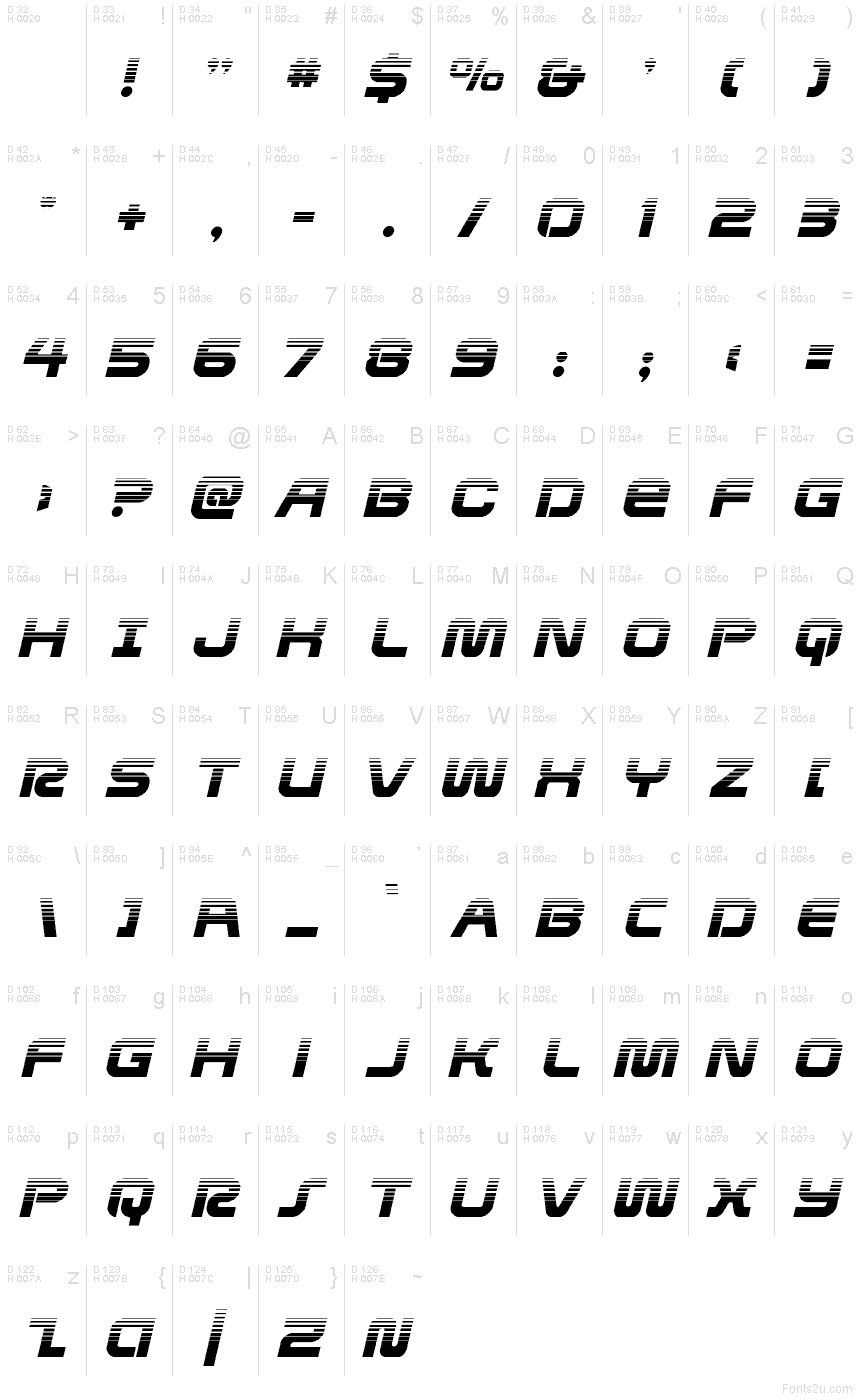
Rocket Command Halftone Italic
Rocket Command Halftone Italic Font by Iconian Fonts is a futuristic display font that instantly stands out with its geometric and mechanical feel. Its bold weight and expanded width establish force and a masculine character with minimal curves across the glyphs. Each of them is designed to mimic segmented bodies, robotic or futuristic in their general inspiration.
This free display font can naturally fit into digital or gaming contexts. Use it for your esports tournament posters, sci-fi movie cover design, indie game launch poster design, robot/cyborg villain T-shirt print design, concert flyer artwork, website header design for digital product companies, or merchandise branding.